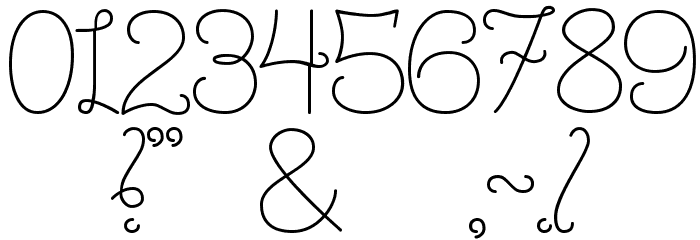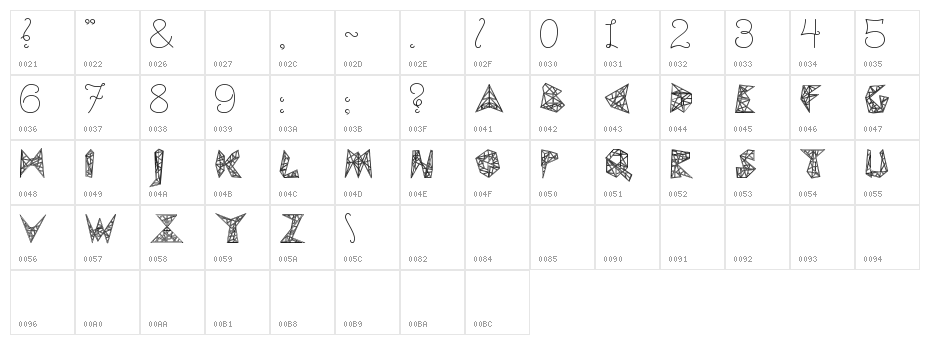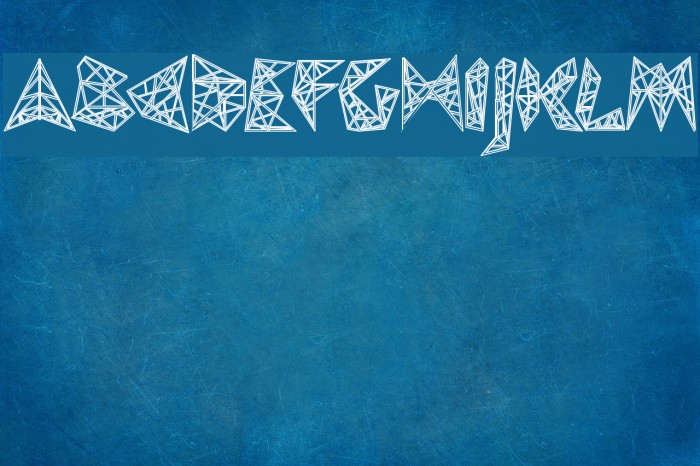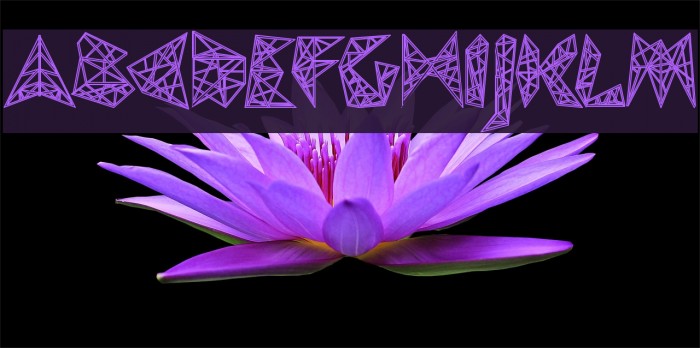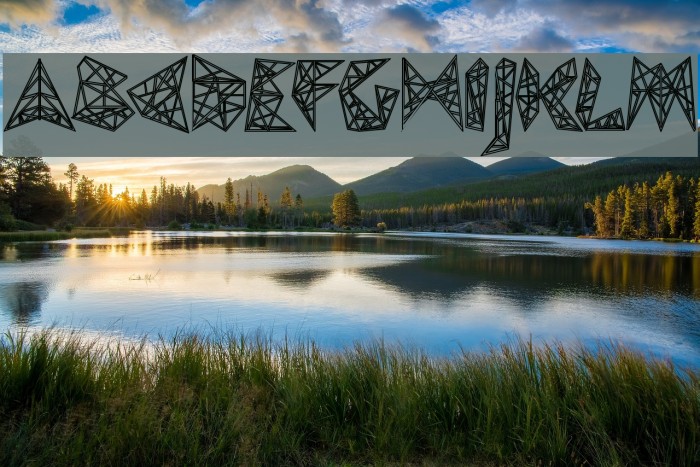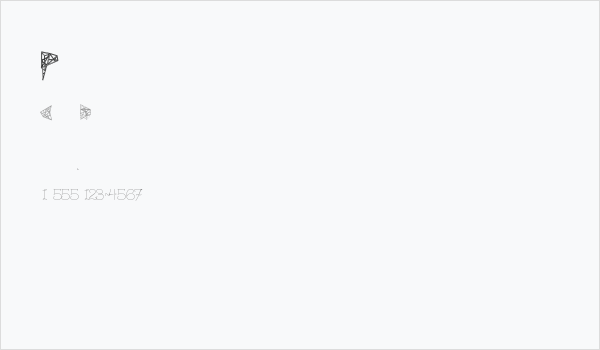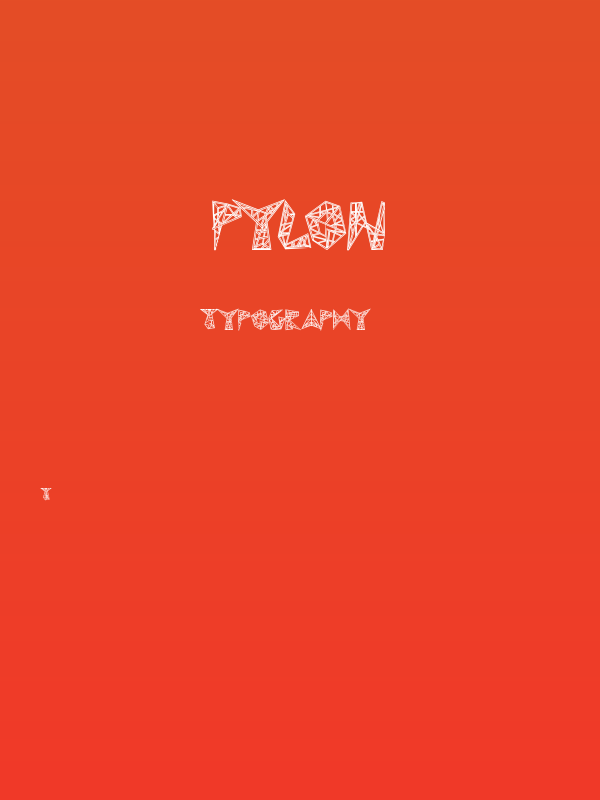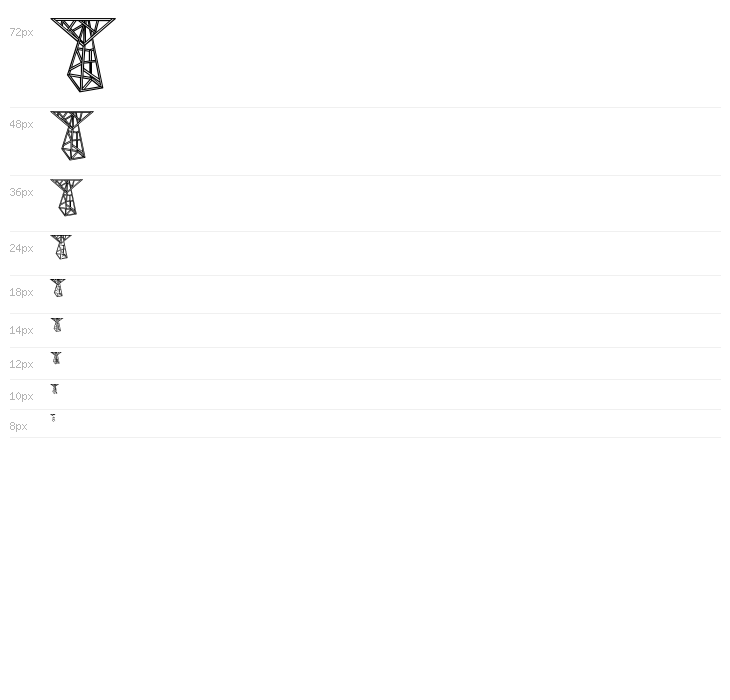
Pylon Font
Pylon Description
This font features a unique and artistic design with uppercase letters resembling intricate wireframe structures, giving a geometric and abstract appearance. The numbers and special characters, however, are presented in a contrasting style with smooth, flowing lines and a whimsical, handwritten look. This combination creates a dynamic and visually engaging typeface that stands out due to its dual nature. The uppercase letters are bold and complex, while the numerals and symbols offer a softer, more playful touch.
| Proposed Projects | Ideal for creative projects such as posters, album covers, or branding that seeks to make a bold statement with a touch of whimsy. |